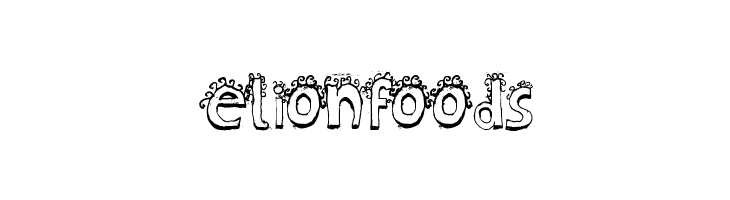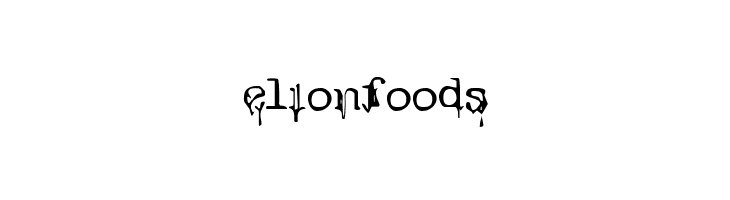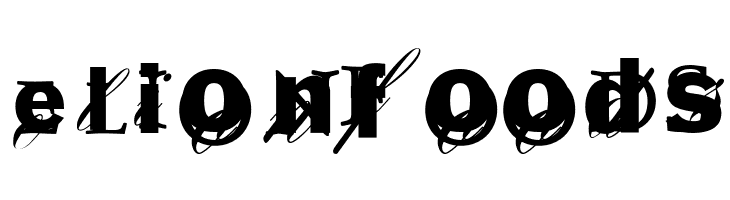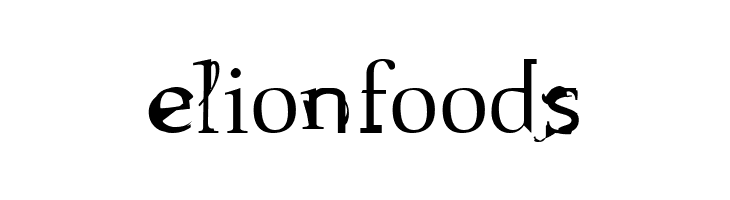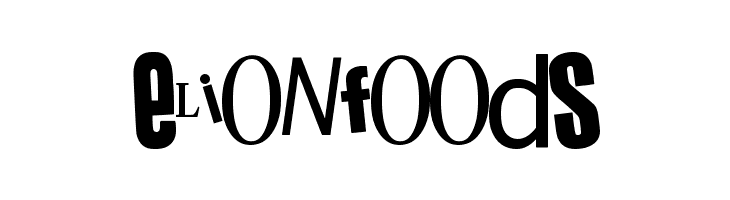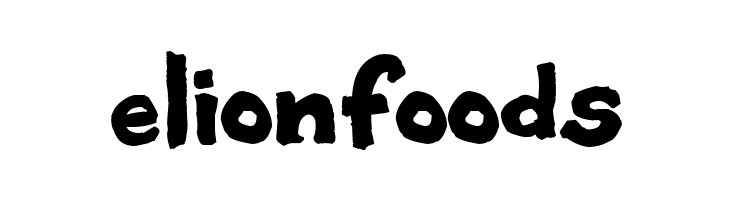
( Fonts by Luis Angel Uribe - luisangeluribe.wordpress.com )
A whimsical, decorative font with playful, creature-like embellishments.
( Font by kingthingsfonts.co.uk )
A bold, ransom-note style font with eclectic and textured characters.
( Fonts by Sacred Nipple - Brode Vosloo )
An artistic serif font with decorative, vine-like embellishments.
( Fonts by Jonathan Richard - jonathanr.net )
A bold, rugged font with a hand-drawn, textured appearance.
( Fonts by www.junkohanhero.com )
A distressed, grungy font with a cut-out newspaper style.
An ornate, decorative font with intricate floral embellishments.
An ornate and decorative font with intricate swirls and embellishments.